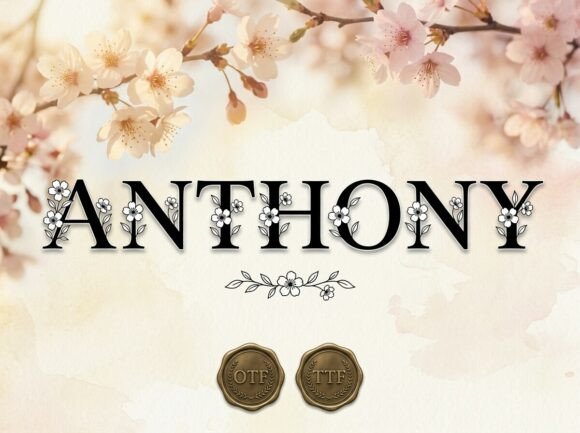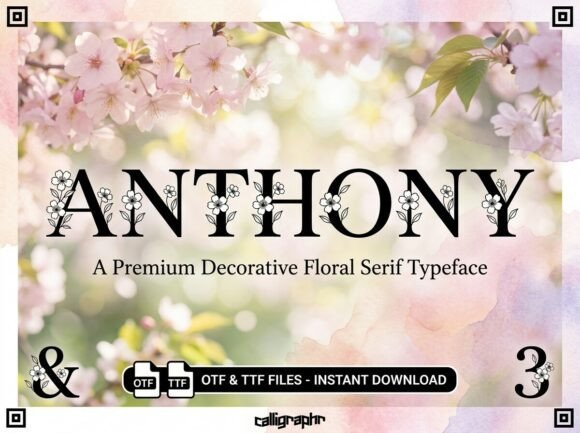
Introducing Anthony Font: A Stunning Decorative Display Font
Are you tired of using the same old fonts for your designs? Look no further than Anthony Font, a unique and artistic display font that’s sure to turn heads. This stunning font is designed to be the center of attention, featuring bold and eye-catching elements that will elevate your designs to the next level.
A Font that Breaks Away from the Ordinary
Anthony Font is perfect for creators who want to add a touch of personality to their designs. With its strong visual personality and unique artistic elements, this font is sure to make your designs stand out from the crowd. Whether you’re a graphic designer, artist, or crafter, Anthony Font is the perfect choice for anyone looking to add some excitement to their work.
Versatile and Professional
One of the best things about Anthony Font is its versatility. This font is perfect for bold headlines, artistic logos, and creative packaging, while maintaining a professional and polished finish. The font is designed to be easy to use and compatible with a wide range of devices and software, making it perfect for designers and crafters of all levels.
Why Choose Anthony Font?
So why choose Anthony Font over other display fonts on the market? Here are just a few reasons:
- Unique and Artistic: Anthony Font features unique artistic elements that will add a touch of personality to your designs.
- Versatile: This font is perfect for a wide range of design applications, from bold headlines to artistic logos and creative packaging.
- Professional and Polished: Despite its bold and artistic design, Anthony Font maintains a professional and polished finish that’s perfect for designers and crafters of all levels.
Here are a few tips and tricks to help you get the most out of Anthony Font:
- Use it for Headlines: Anthony Font is perfect for bold headlines and titles. Use it to add a touch of personality to your designs.
- Experiment with Colors: Anthony Font looks great in a wide range of colors. Experiment with different colors and combinations to find the one that works best for your design.
- Pair it with Other Fonts: Anthony Font can be paired with other fonts to create a unique and interesting design. Experiment with different font combinations to find the one that works best for your design.
Anthony Font is a stunning decorative display font that’s perfect for designers and crafters who want to add a touch of personality to their designs. With its unique artistic elements, strong visual personality, and versatility, this font is sure to be a hit with anyone looking to break away from the ordinary. So why wait? Purchase Anthony Font today and start creating stunning designs that turn heads!